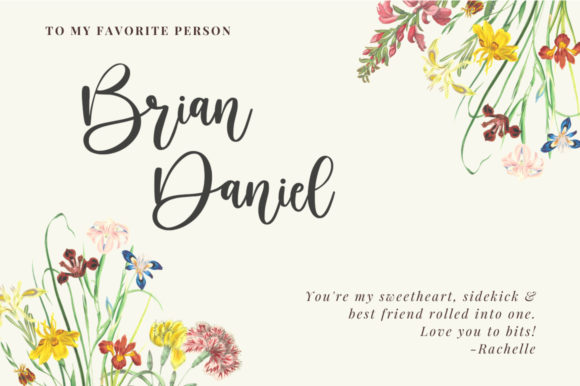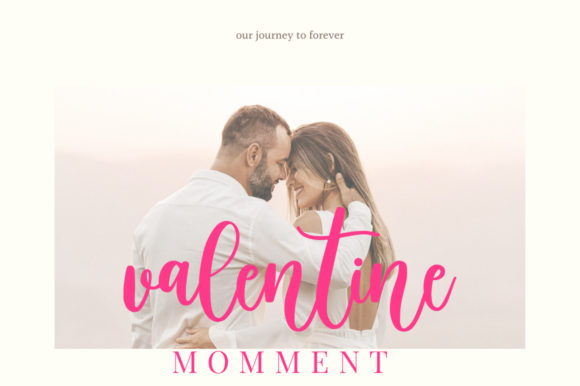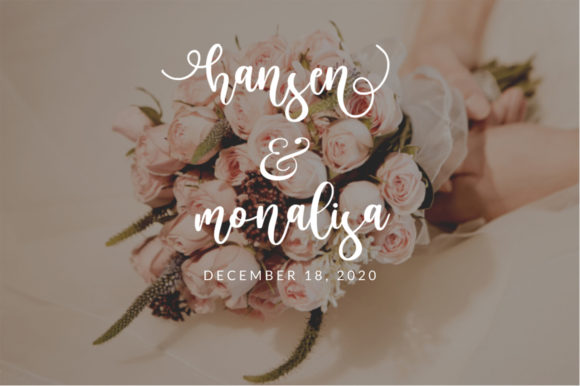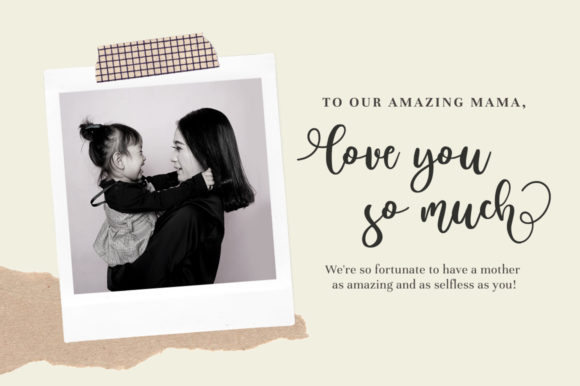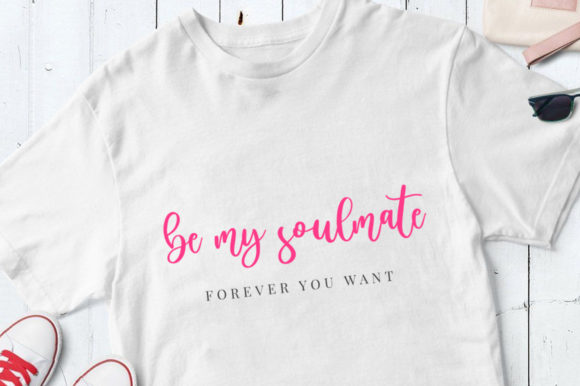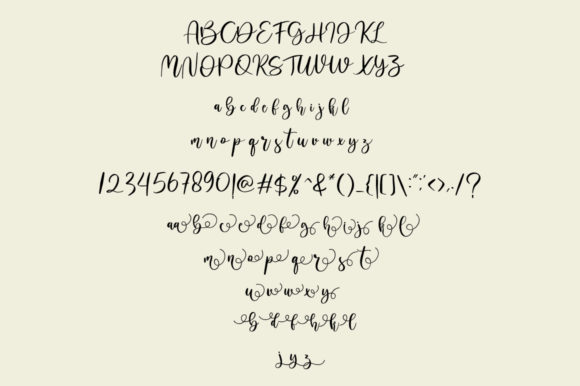
The Perfect Blend of Creativity and Romance
As I sat at my desk, staring blankly at my computer screen, I knew exactly what I needed to spark some inspiration – a fresh cup of coffee and a dash of creativity. That’s when I stumbled upon the perfect combination: a warm bagel and the Bagelad Font. The moment I typed out the first words in this beautiful, handwritten font, I knew I was onto something special.
Bagelad Font is more than just a font – it’s a key to unlocking your full creative potential. This sweet, all-round, and flexible handwritten font is designed to add a touch of warmth and romance to any project. Whether you’re a seasoned designer or just starting out, Bagelad Font is the perfect companion for bringing your ideas to life.
With its PUA encoding, you’ll have access to all the glyphs and swashes you need to create truly unique and eye-catching designs. The Bagelad Font is a valuable addition to any designer’s toolkit, and I’m excited to share its many charms with you.
Bagelad Font Key Features
- Character Set: The font includes a comprehensive set of characters, including Latin, Cyrillic, and Greek alphabets, making it suitable for various languages.
- Unique Characteristics: The font features a distinctive, hand-drawn style with intricate details and ornaments, adding a touch of elegance and sophistication to any design.
Review of Bagelad Font
Overall, I think Bagelad Font has a lot going for it. ✨ Its modern, clean design makes it perfect for any digital project that needs a fresh and contemporary feel. The font is highly legible and versatile, working well in both large and small sizes. ✨ I also appreciate the attention to detail in the font’s design, with each character carefully crafted to ensure a smooth user experience.
However, I do have a few concerns about the font’s limitations. ⚠️ One issue is the limited language support, which might be a problem for projects that require multilingual support. Additionally, the font’s weight range is a bit limited, which may not be suitable for projects that require a wide range of font weights.
Here are some of the font’s key features:
- Modern, clean design
- Highly legible and versatile
- Smooth user experience
- Perfect for digital projects
- Limited language support
- Limited weight range
Overall, I would recommend Bagelad Font for projects that require a modern and clean design. However, if you need a font with extensive language support or a wide range of font weights, you may want to consider other options.
Tips for Getting the Most Out of Bagelad Font
To get the most out of Bagelad Font, use it sparingly to create emphasis and visual interest. Pair it with simple backgrounds and clear typography to make it stand out. Experiment with different font sizes and colors to find the perfect combination for your design.
Bagelad Font is ideal for creating bold and modern typography in various design applications, including:
- Editorials and publications
Alternatives to Bagelad Font for Designers
Bagelad Font is a sans-serif font known for its modern and sleek appearance, often used in digital products and applications. However, for designers looking for alternatives, here are a few options to consider.
What is the recommended font size for optimal readability with the Bagelad Font?
The recommended font size for optimal readability with the Bagelad Font is between 12-14 points for body text. However, this may vary depending on the specific design requirements and the intended audience. It’s always a good idea to test the font at different sizes to ensure the best results.